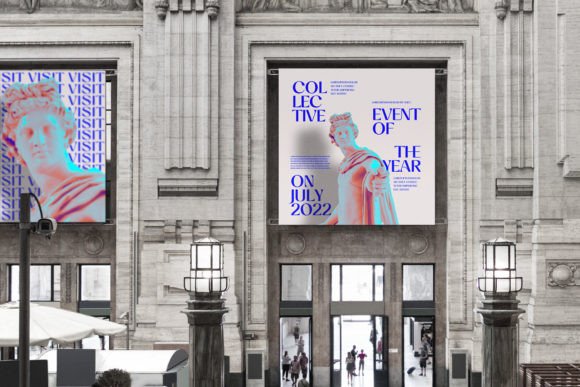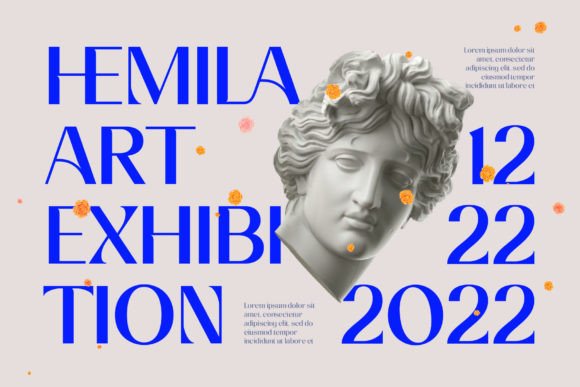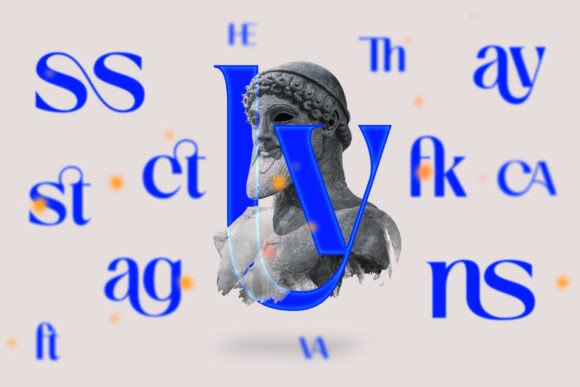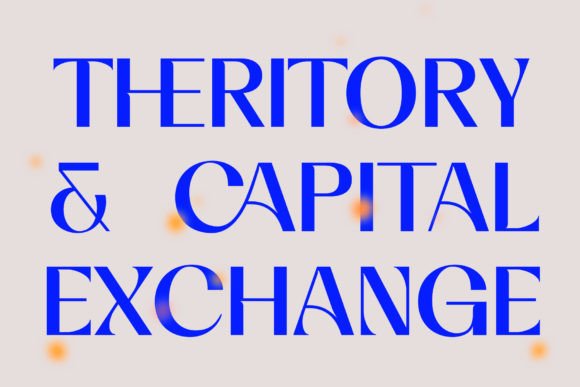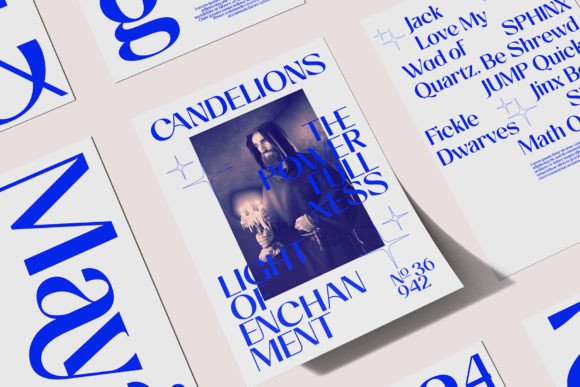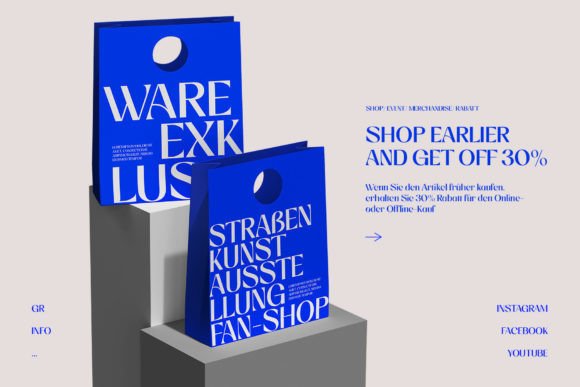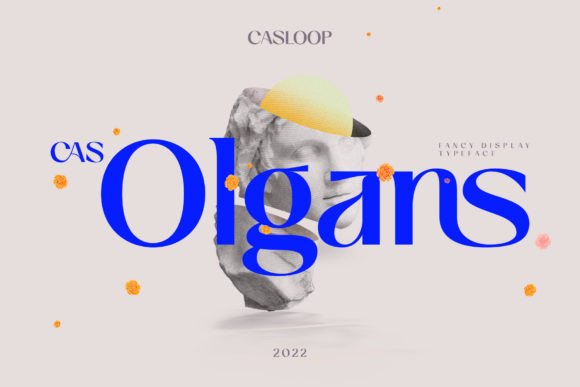
Cas Olgans Font: Elevate Your Designs with a Touch of Renaissance Elegance
In the world of typography, fonts play a crucial role in conveying the tone and aesthetic of a design. For designers and crafters seeking a unique and versatile typeface, Cas Olgans font is an excellent choice. This semi-serif display font seamlessly blends Renaissance nuances with modern trends, making it an ideal choice for a wide range of creative projects.
The Renaissance Inspiration
Cas Olgans font draws inspiration from the Renaissance era, characterized by its elegant and refined typography. The font’s design is influenced by the classic typefaces of the period, with subtle nuances that evoke a sense of sophistication and luxury. However, unlike traditional Renaissance fonts, Cas Olgans has a light and airy feel, making it perfect for modern designs that require a touch of elegance.
Modern Twists and Trends
While Cas Olgans font is rooted in Renaissance typography, it also incorporates modern elements that align with current design trends. The font’s semi-serif design and minimalist aesthetic make it an excellent choice for designers seeking a typeface that is both classic and contemporary. The font’s versatility allows it to be used in a variety of contexts, from branding and advertising to packaging and digital design.
Key Features of Cas Olgans Font
- Semi-serif design: Cas Olgans font features a unique semi-serif design that sets it apart from traditional serif and sans-serif fonts.
- Renaissance nuances: The font’s design is influenced by classic Renaissance typography, giving it a touch of elegance and sophistication.
- Light and airy feel: Cas Olgans font has a light look without excessive accents, making it incredibly versatile for a wide range of design projects.
- Modern aesthetic: The font’s minimalist design and semi-serif elements give it a modern twist that aligns with current design trends.
Uses for Cas Olgans Font
Cas Olgans font is an incredibly versatile typeface that can be used in a variety of design projects, including:
- Branding and advertising: The font’s elegant and refined design makes it perfect for luxury brands and high-end advertising campaigns.
- Packaging design: Cas Olgans font is ideal for packaging design, particularly for products that require a touch of sophistication and elegance.
- Digital design: The font’s light and airy feel makes it perfect for digital designs, including websites, social media graphics, and mobile apps.
- Print design: Cas Olgans font is suitable for a range of print design projects, including business cards, brochures, and posters.
Tips for Using Cas Olgans Font
To get the most out of Cas Olgans font, consider the following tips:
- Use it as a display font: Cas Olgans font is designed to be used as a display font, so use it to add a touch of elegance and sophistication to your designs.
- Experiment with font sizes: The font’s versatility allows it to be used at a range of font sizes, from large display headings to smaller body text.
- Pair it with complementary fonts: Cas Olgans font pairs well with a range of complementary fonts, including sans-serif and script fonts.
Cas Olgans font is a unique and versatile typeface that offers a touch of Renaissance elegance and modern sophistication. Its light and airy feel, combined with its semi-serif design and minimalist aesthetic, make it an excellent choice for a wide range of design projects. Whether you’re a designer or crafter, Cas Olgans font is an excellent addition to your typography toolkit.